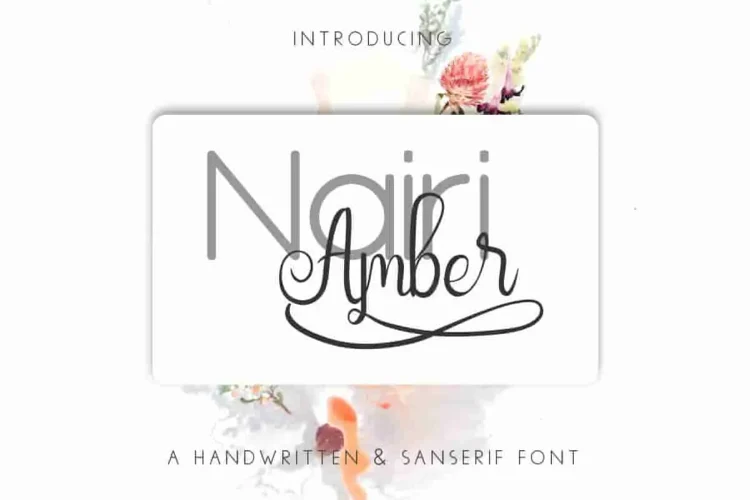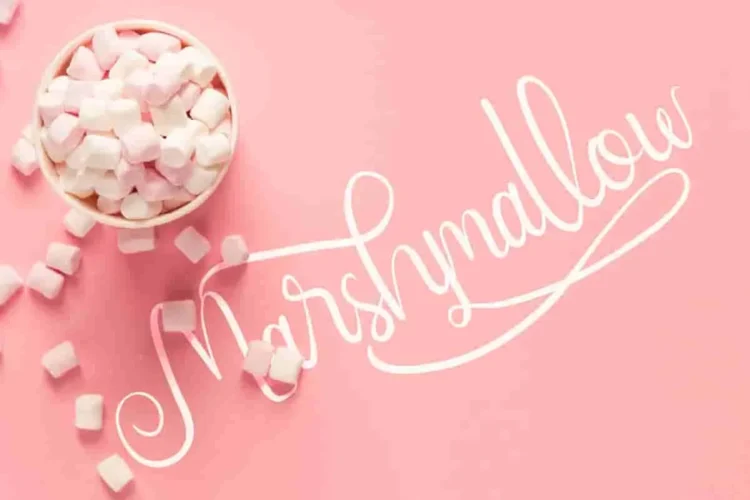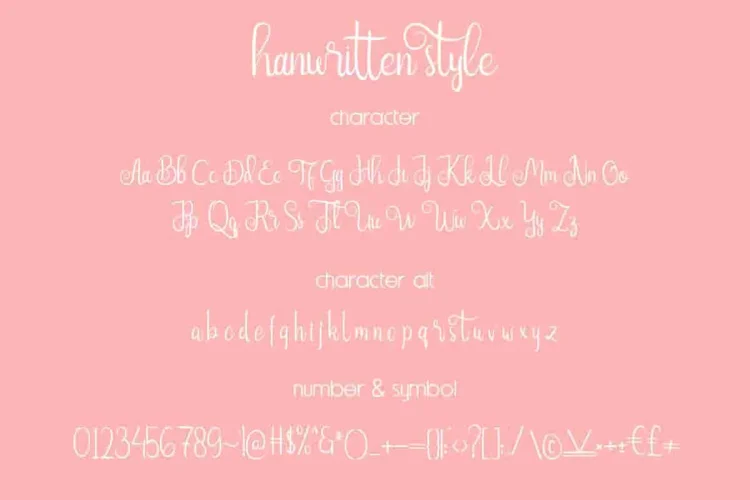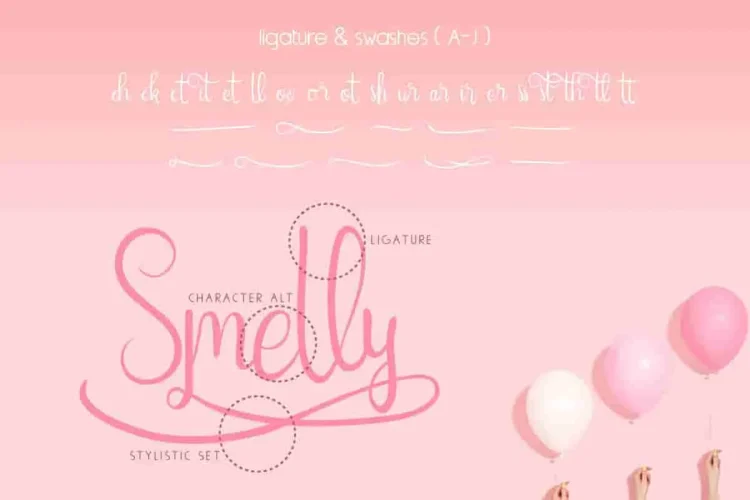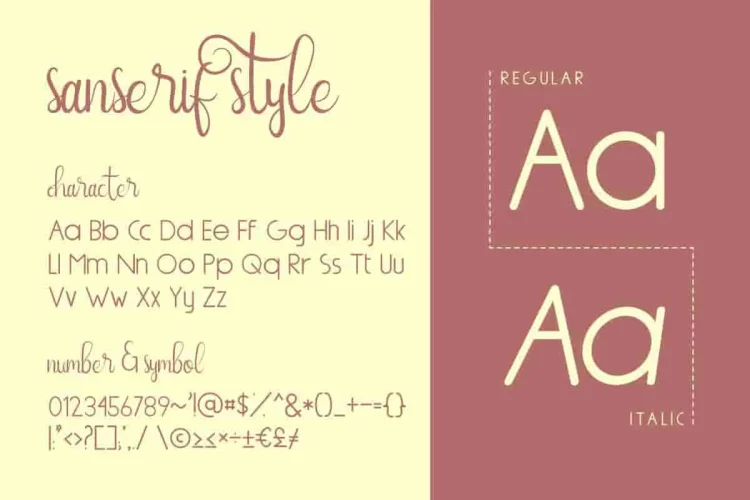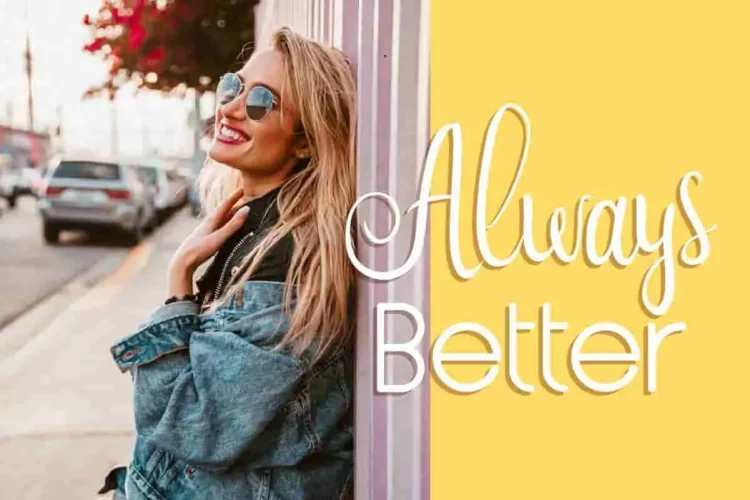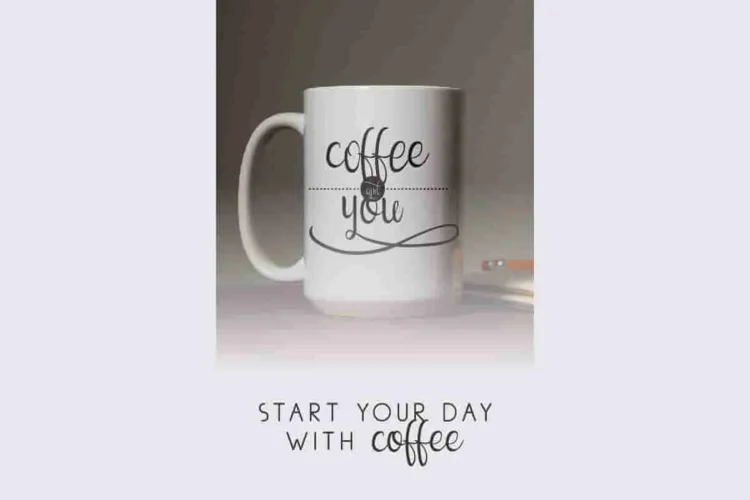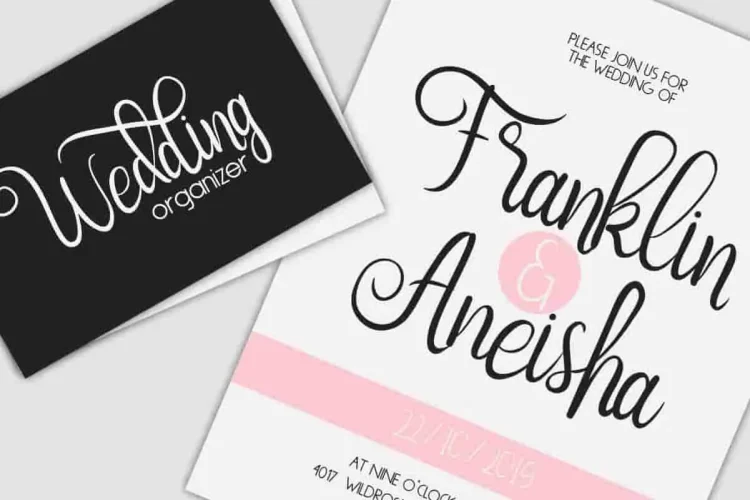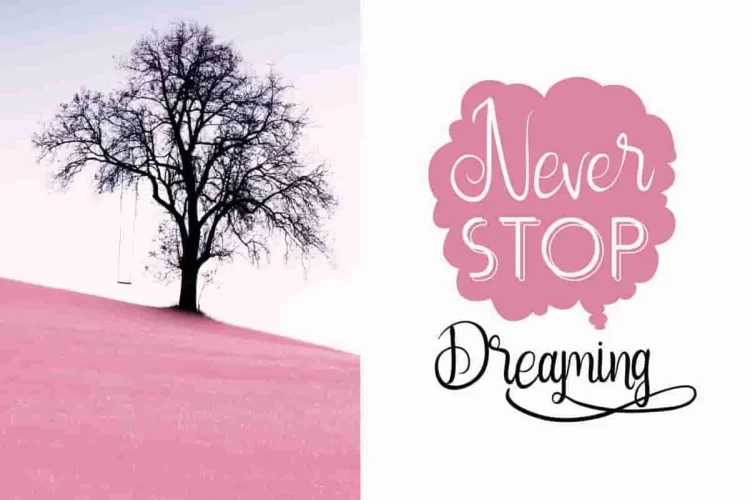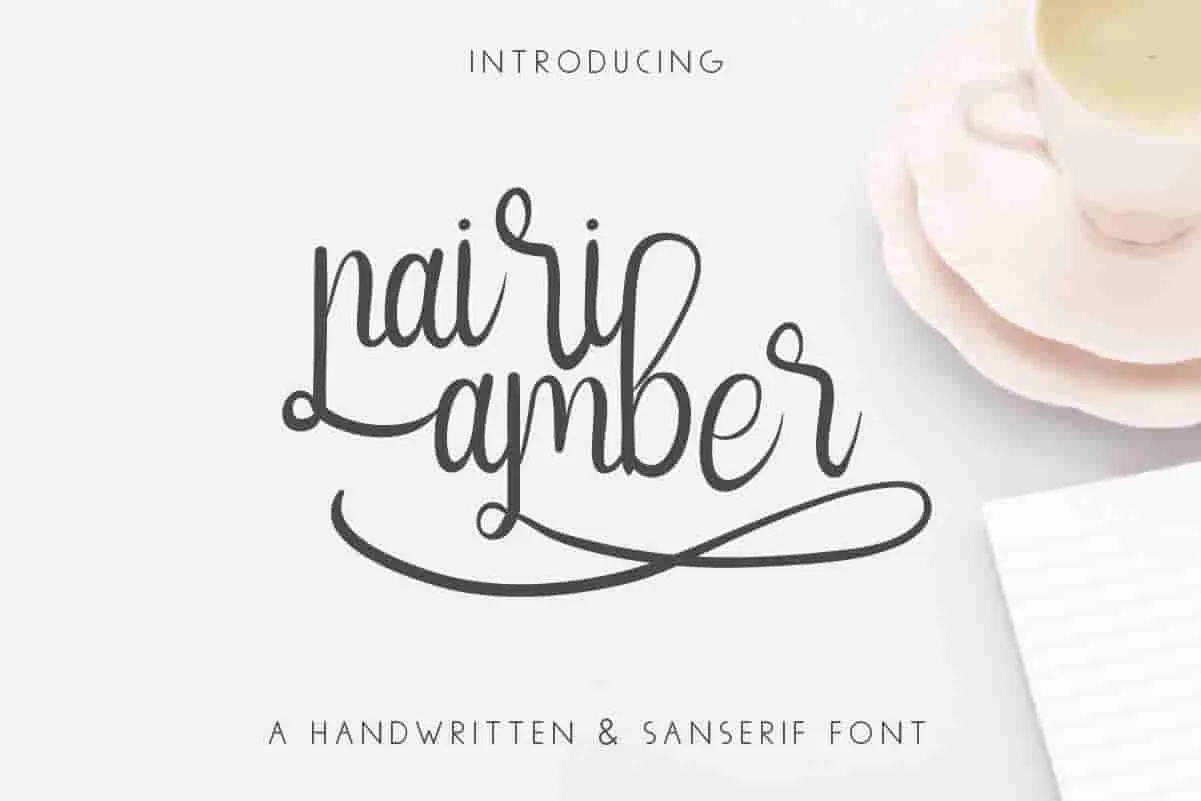
NairiAmber Fancy Handwritten Font Duo
Whats up Everyone! Please meet our newest font : NairiAmber ! This is a new font duo with Sans serif and a fancy script.
Designed with feminine flair, this duo features elegant, flowing glyphs in the script style, ideal for names, quotes, logos, and signature-based branding. Moreover, the sans serif provides a versatile, minimalist base—great for product descriptions, business titles, and modern digital content.
🖋️ Two Contrasting Styles. One Seamless Visual Language.
• ✒️ NairiAmber Script – A fancy, handwritten font filled with curves, swashes, and authentic pen-style motion. Its stylish and personal look makes it perfect for event stationery, fashion, beauty branding, florists, or artistic content. Feminine yet expressive, this script adds a handcrafted soul to any design.
• 🔠 NairiAmber Sans – A clean, modern sans serif with smooth curves and subtle personality. It’s strong enough for headers and clear enough for small text—ideal for brochures, websites, signage, and editorial layouts. The sans style provides balance and structure, complementing the flow of the script.
🎯 Why Choose NairiAmber Font Duo?
• Unique Duo: Script + Sans Serif for ultimate versatility
• Fancy Yet Readable: A perfect blend of beauty and function
• Ideal for creatives, agencies, lifestyle brands, and service industries
It’s perfect for any project that requires a handwritten feel—or one that needs a clean sans serif touch. Great for merchandising, photography, watermark, festival, branding, logo, stationery, business card, signage, flyer, brochure etc. A wide range of industries can benefit from NairiAmber—including construction, real estate, legal services, weddings, florists, music professionals, and more.